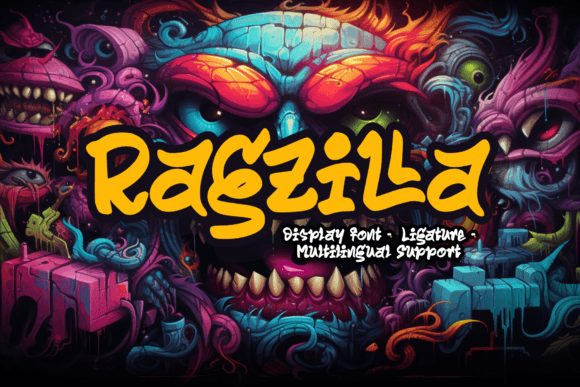
Unleash the urban rebellion within your designs with Ragzilla, the ultimate display font that screams wild, free-spirited energy. Rooted in the boldness of graffiti art, this font is a symphony of daring and expression, guaranteed to make your visual statements pop.
Ragzilla's thick brush style is a tribute to the vibrancy of street culture, capturing the energy and movement of graffiti masterpieces. Its sharp lines and strong brush strokes create an unforgettable visual impact, demanding attention and leaving a lasting impression.
This font is not just a collection of letters; it's an invitation to break the boundaries of conventional design. Each character dances with untamed spirit, resembling the strokes of a graffiti artist painting their dreams on city walls. Unleash your creative rebellion and let Ragzilla's raw energy ignite your designs.
Picture your Instagram posts exploding with personality, your logos standing out with edgy confidence, and your posters radiating an untamed spirit. Ragzilla is the key to unlocking a world of visual storytelling where every letter carries a message of boldness and authenticity.
Dare to be different, embrace the urban vibe, and let Ragzilla's rebellious spirit ignite your designs. Experience the raw power of street art typography and watch your creative projects transform into striking masterpieces. Unleash your inner graffiti artist today!